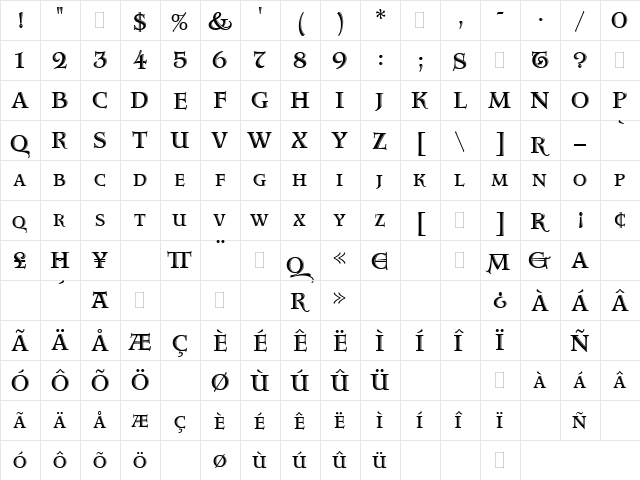
Aquitaine CapsMedium
Design Context for Aquitaine Typeface
Aquitaine takes a measured approach to typography — its balanced proportions and neutral character make it a reliable workhorse for both digital and print work.